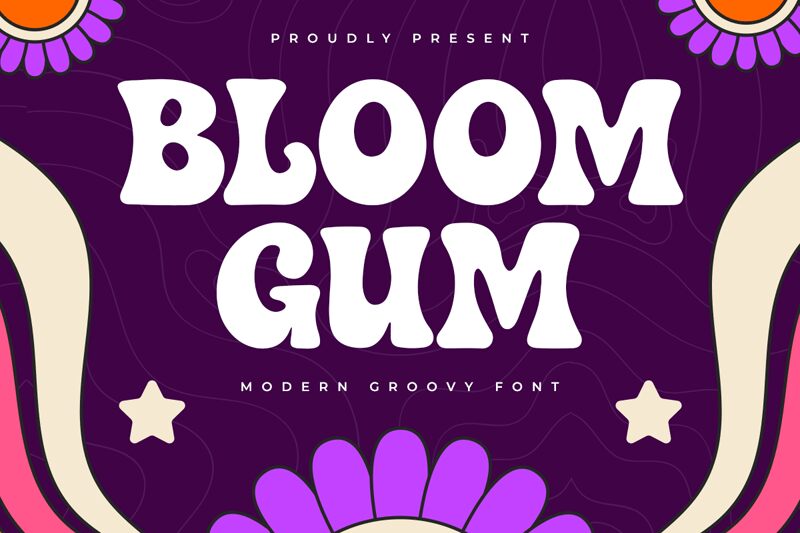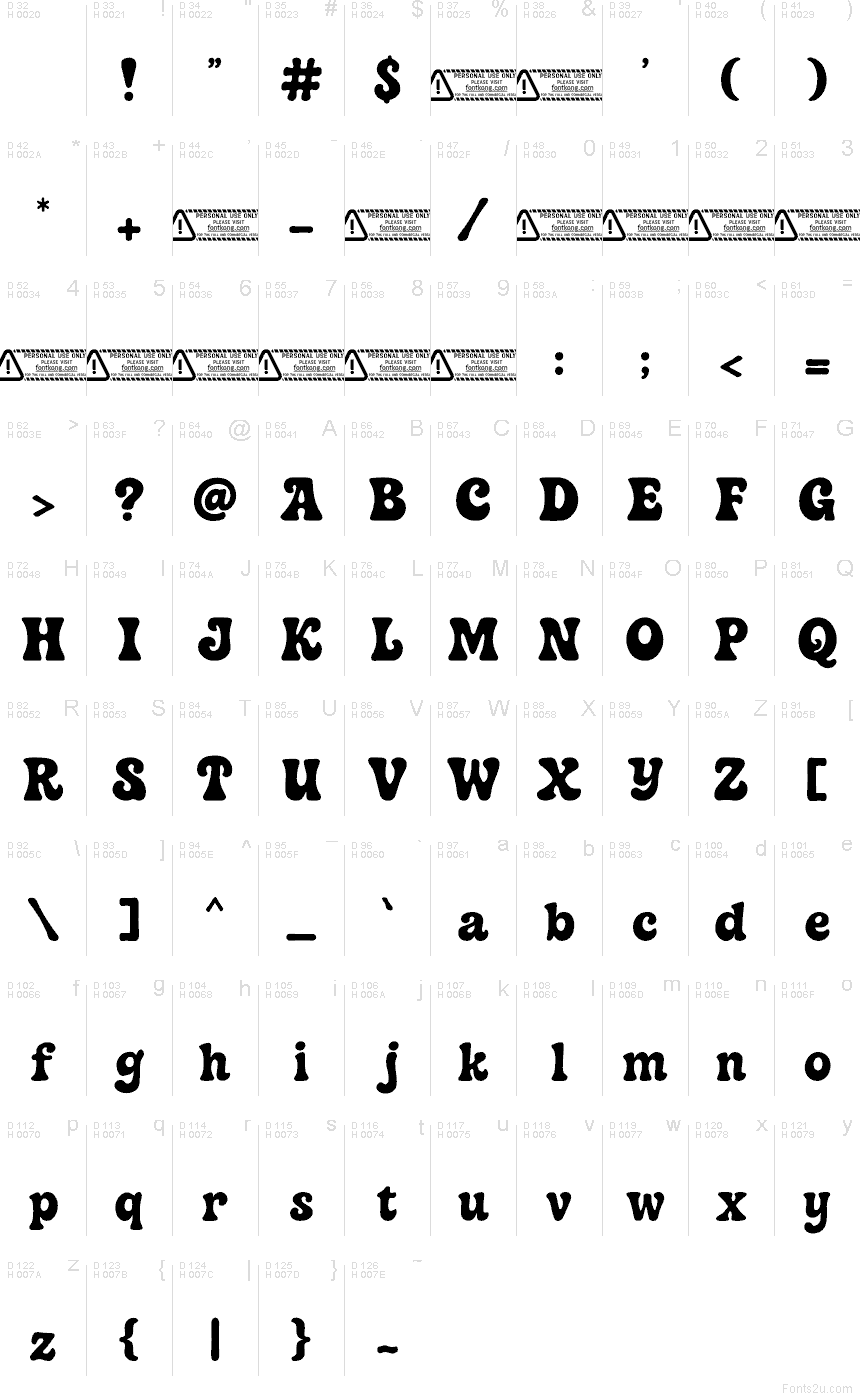
Bloom Gum font by Kong Font is a free groovy typeface with a squishy, ink-heavy bounce—thick strokes that feel like chewy bubblegum pressed into a stamp. Its rounded serifs and tight, cuddly spacing create a playful rhythm that stays loud even from a distance, without turning messy.
Using Bloom Gum, you’ll get instant personality on retro posters, candy or snack packaging, kids’ party invites, sticker sheets, cheerful logos, social headers, and T‑shirt graphics. Keep it big and give it a touch of extra letter spacing, then pair this free font with a clean condensed sans to keep the vibe crisp.